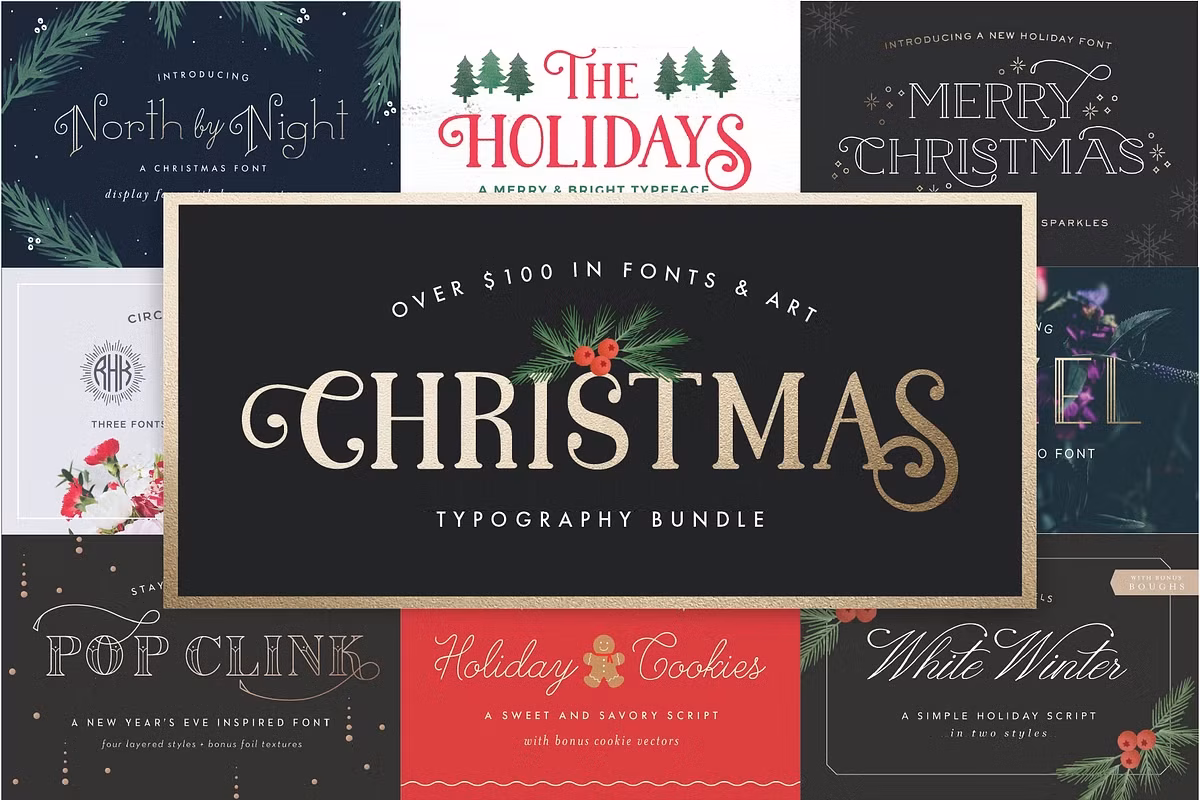
You must purchase this font for commercial use. However, you can download Christmas Font Bundle Free Download for testing purposes. The Christmas Font Bundle is a festive collection of holiday-themed typefaces, perfect for capturing the magic and warmth of the season. With a mix of playful scripts, whimsical display fonts, and elegant handwritten styles, this bundle is ideal for Christmas cards, gift tags, seasonal branding, product packaging, invitations, and joyful social media posts.
Each font in the bundle brings a unique holiday spirit—whether it's the cozy charm of a handwritten script or the bold excitement of a winter display font. Many of the fonts come with festive extras like snowflakes, ornaments, or decorative swashes, making it easy to create merry and memorable designs.